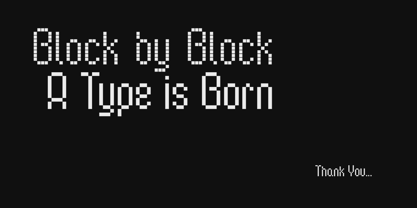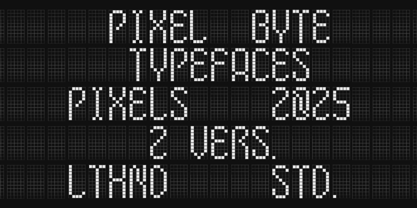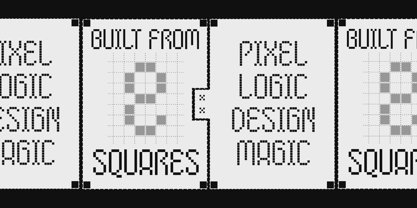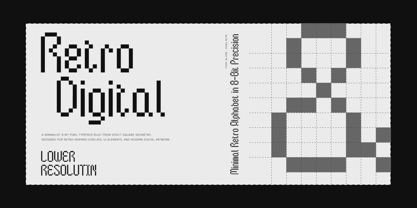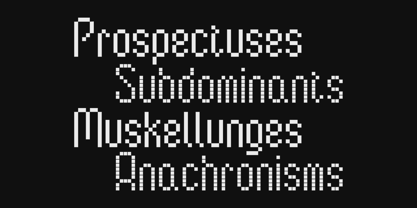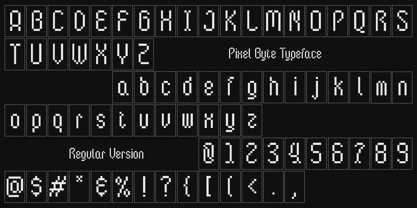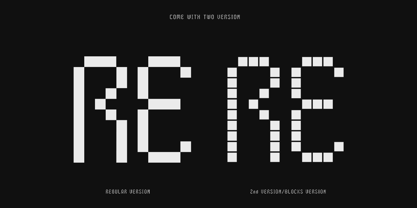
Pixel Byte
von Letterhend
Die Schriftfamilie Pixel Byte wurde von Hendry Juanda entworfen und von Letterhend veröffentlicht. Pixel Byte enthält 2 Stile und Familienpaketoptionen. Mehr über diese Familie
Pixel Byte captures the essence of digital minimalism with its precise grid-based construction and pixel-block letterforms, echoing classic 8-bit displays and early computer typography. Perfect for game interfaces, tech branding, coding-themed visuals, digital posters, and any project seeking a nostalgia and modern digital clarity. Features : Uppercase & lowercase Numbers and punctuation Alternates & Ligatures Multilingual Support PUA encoded
Designer: Hendry Juanda
Aktuelle Foundry: Letterhend